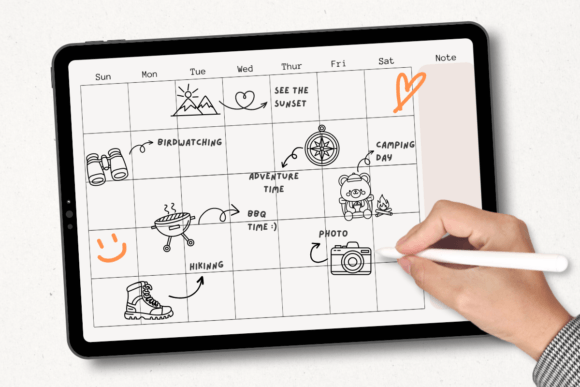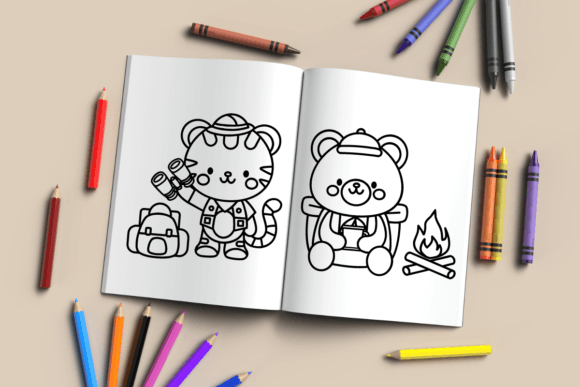
Camping Doodle Font
Camping Doodle Font is a charming typeface featuring hand-drawn illustrations inspired by camping and the great outdoors. Perfect for camping invitations, outdoor-themed designs, or nature-inspired graphics, it adds a whimsical and rustic feel to projects. With doodles of tents, campfires, backpacks, and more, this font captures the spirit of adventure and the beauty of nature in a versatile and nostalgic way.